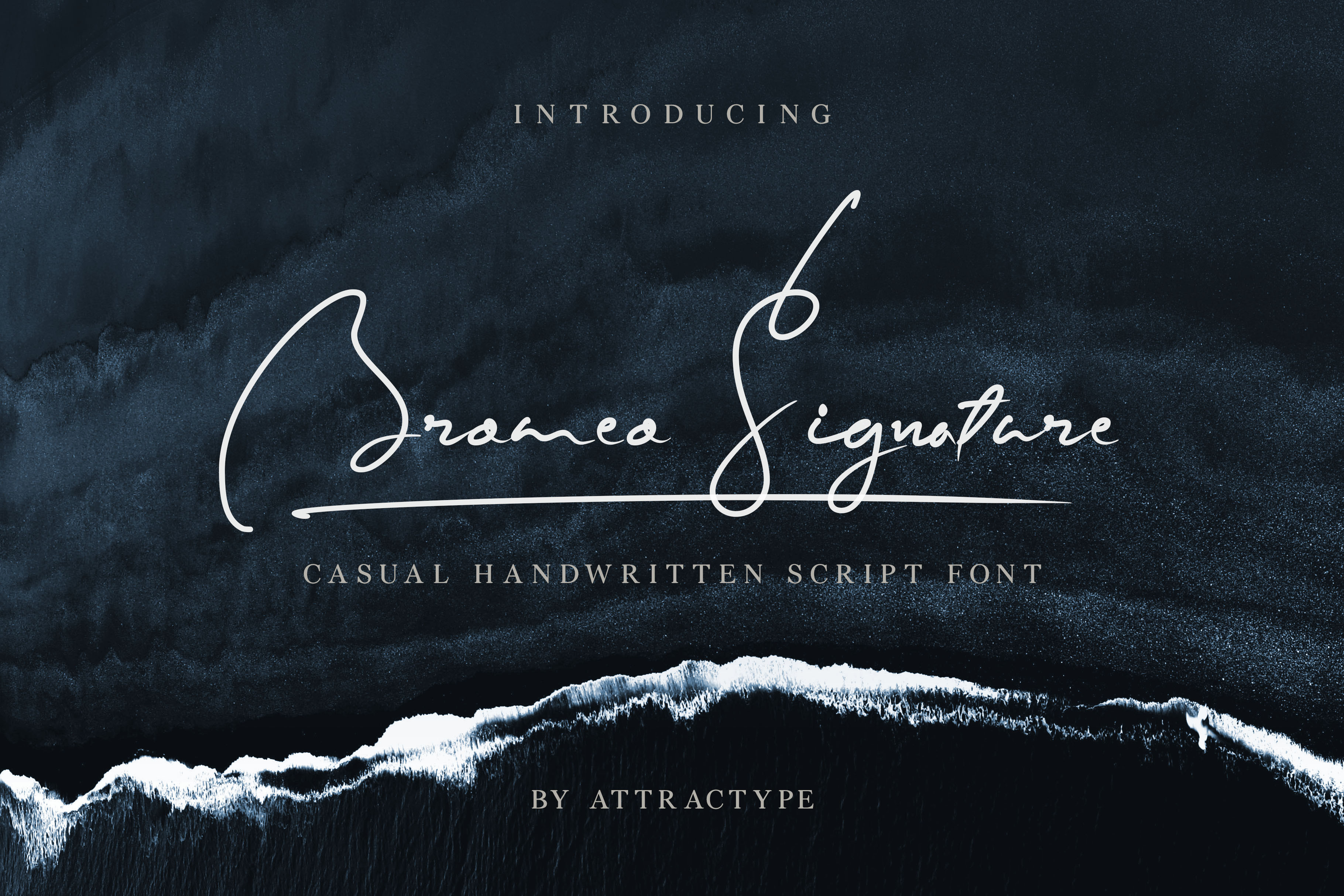
Bromeo Signature - Casual Font
Bromeo Signature is a casual handwritten script font with a relaxed, elegant and natural concept.
Packed with essential alternates and swashes, the Bromeo Sinature font is perfect for signatures, product and craft labels, logos, quotes, and more.
- Standard alphabet and punctuation.
- multilingual support.
- 25 alternates.
- 17 swashes.